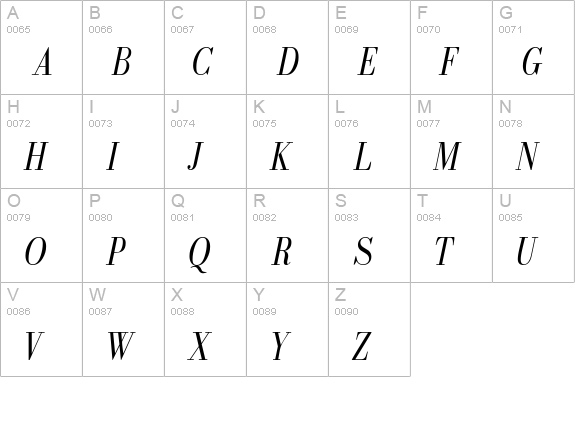
RecitalSSK Italic is a distinctive, italic variant in the RecitalSSK typeface family \xE2\x80\x94 well suited to design and typography projects.
RecitalSSK Italic font is a stunning typeface that exudes elegance and sophistication. With its sleek and slanted design, it adds a touch of grace to any layout or project. The italicized letters flow effortlessly, creating a sense of movement and style. This font is perfect for adding a touch of class to invitations, wedding stationery, logos, and branding materials. Its refined curves and subtle slant make it ideal for creating a sense of luxury and exclusivity. One of the best things about RecitalSSK Italic font is that it is freely available to download at FontsMarket.com. Yes, you read that right, it's completely free! Now, you can have access to this exceptional font without spending a dime. Whether you're a professional designer or a casual user looking to add a touch of sophistication to your projects, RecitalSSK Italic font is a must-have. Its versatility and elegance make it suitable for a wide range of applications. From print to digital, this font will elevate your designs and make them stand out. Don't miss out on this incredible opportunity to enhance your projects with RecitalSSK Italic font. Head over to FontsMarket.com and download it for free today!